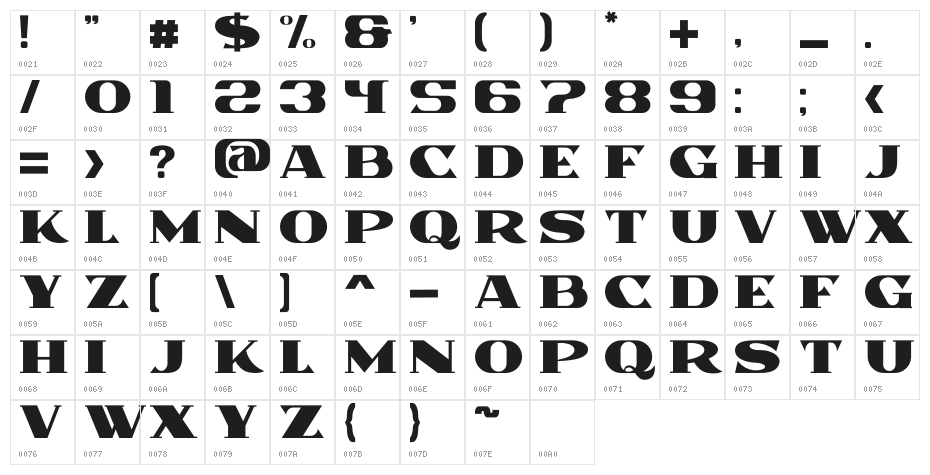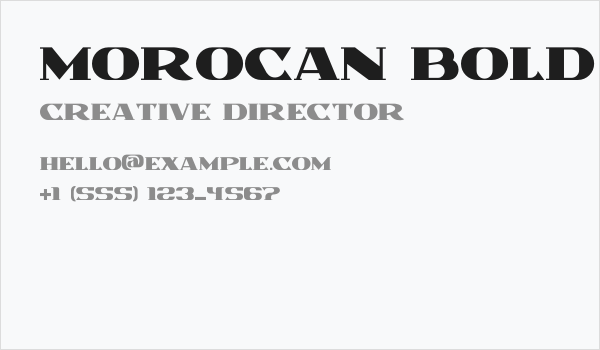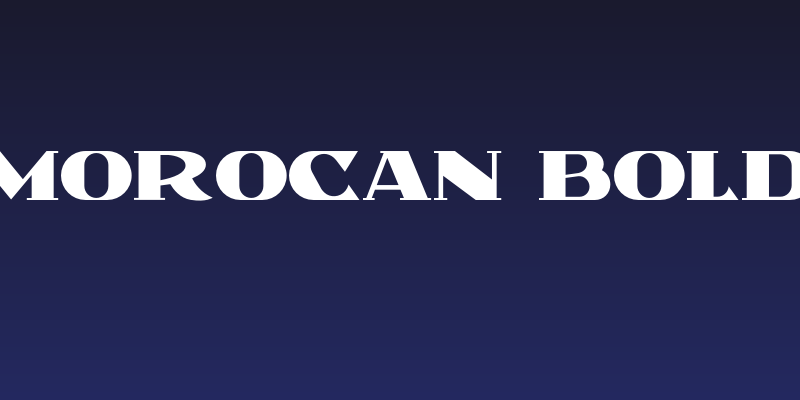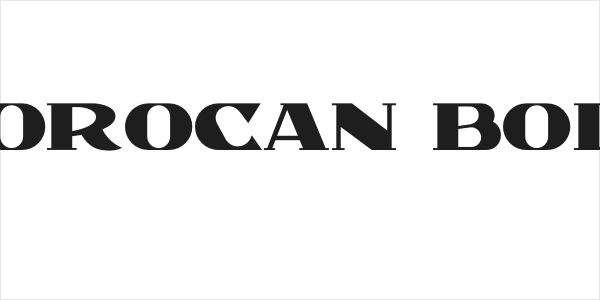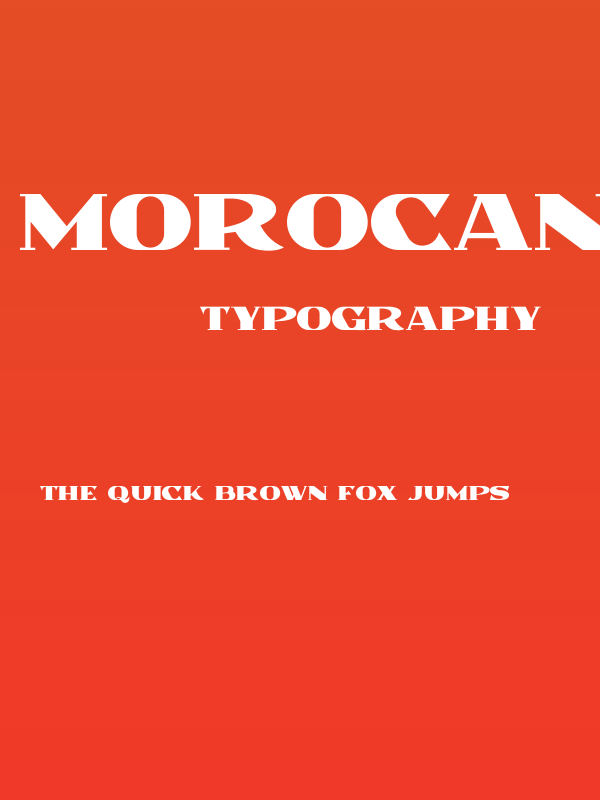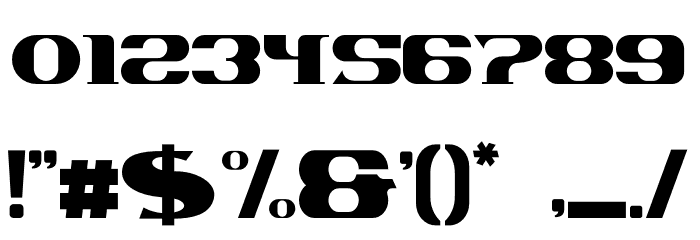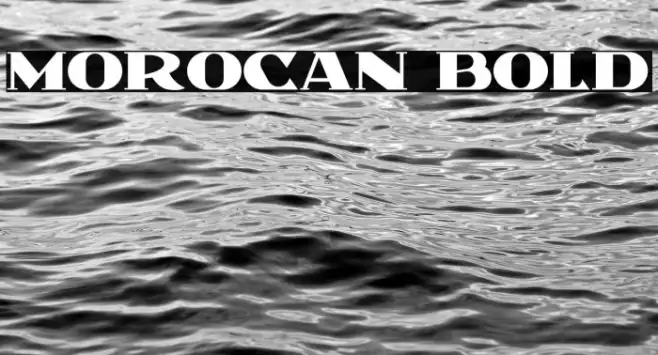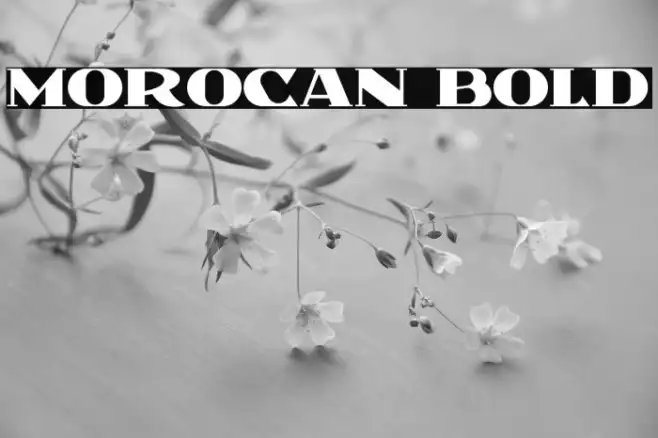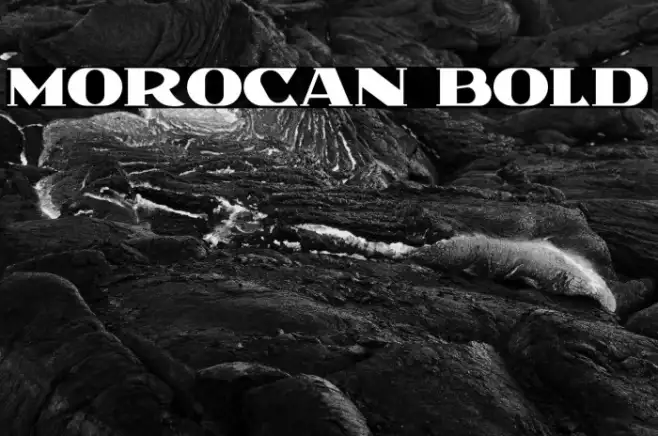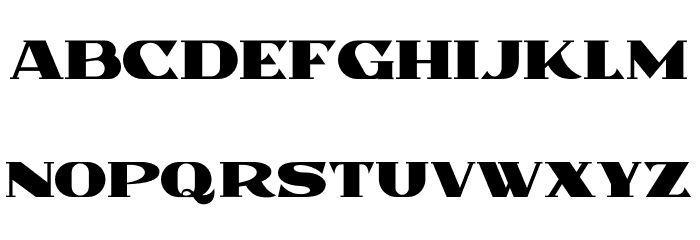
Morocan Bold Font
Morocan Bold Description
This font features a bold and striking design with thick, heavy strokes that create a strong visual impact. The characters have a modern and geometric appearance, with sharp angles and clean lines. The uppercase letters are particularly prominent, while the lowercase letters maintain a consistent style. The numbers are equally bold, ensuring they stand out in any context. Special characters are designed with the same boldness, making them suitable for attention-grabbing headlines or statements.
MOROCAN-BOLD UPPERCASE
MOROCAN-BOLD LOWERCASE
MOROCAN-BOLD OTHER CHARS